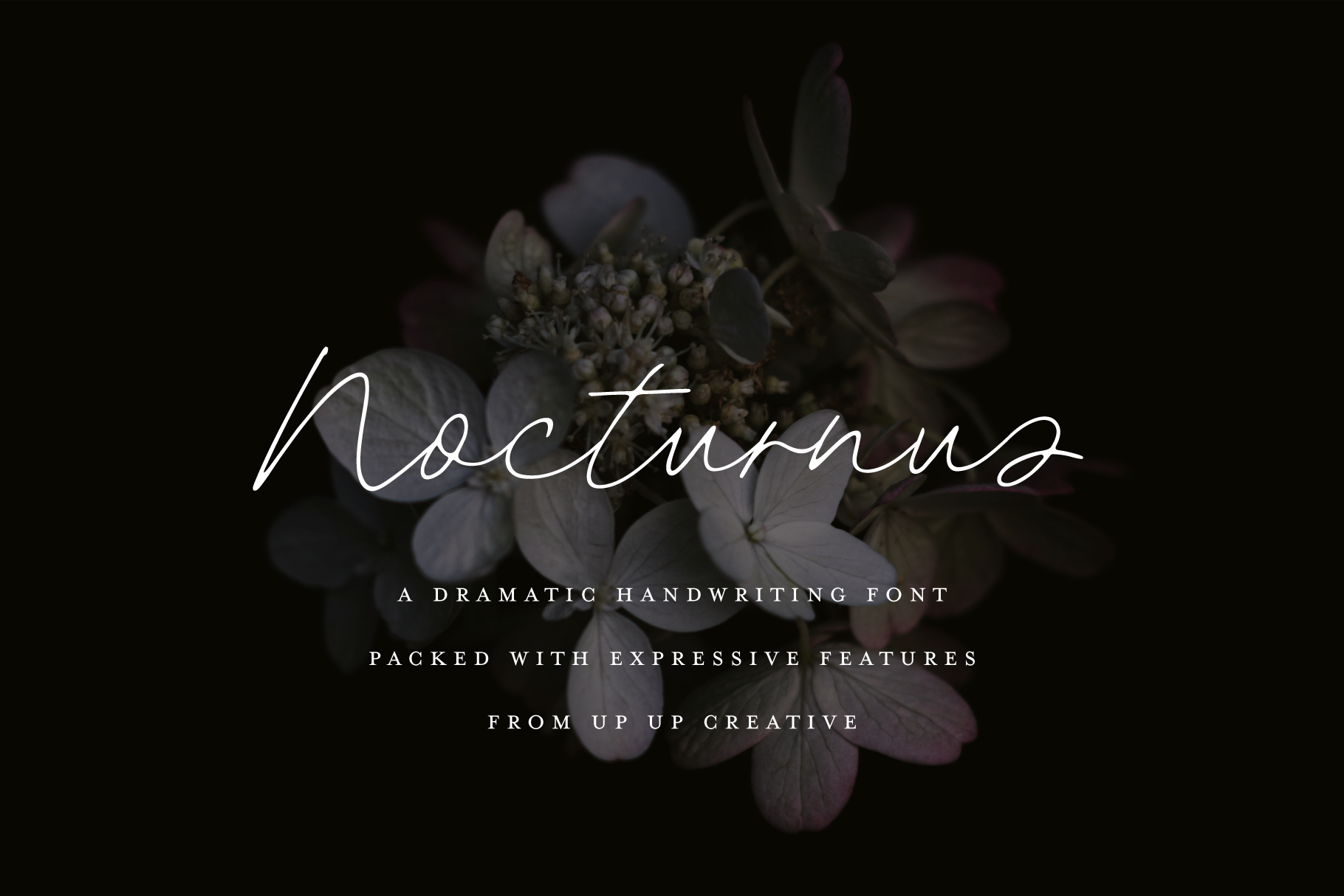
Nocturnus Handwritten Script Font
Nocturnus is a dramatic handwriting font that brings moody elegance and expressive energy to your designs. Whether you’re creating for high-end branding, editorial spreads, wedding invitations, or bold social media graphics, Nocturnus adapts effortlessly. Its blend of edgy imperfection and refined detail makes it just as suitable for luxury projects as for more casual settings, ensuring your words always make a lasting impression.
With 802 glyphs, support for 200 languages, and over 170 thoughtfully designed ligatures, Nocturnus delivers fluid authenticity with every keystroke. It features terminal forms, contextual alternates, and two stylistic sets, giving you the flexibility to craft text that feels natural, varied, and alive.
Whether you’re designing for high-end branding, editorial spreads, wedding stationery, or bold social media graphics, Nocturnus adapts with ease. Its mix of edgy imperfection and refined detail makes it equally at home in luxe projects and more casual settings, ensuring your words always leave a lasting impression.